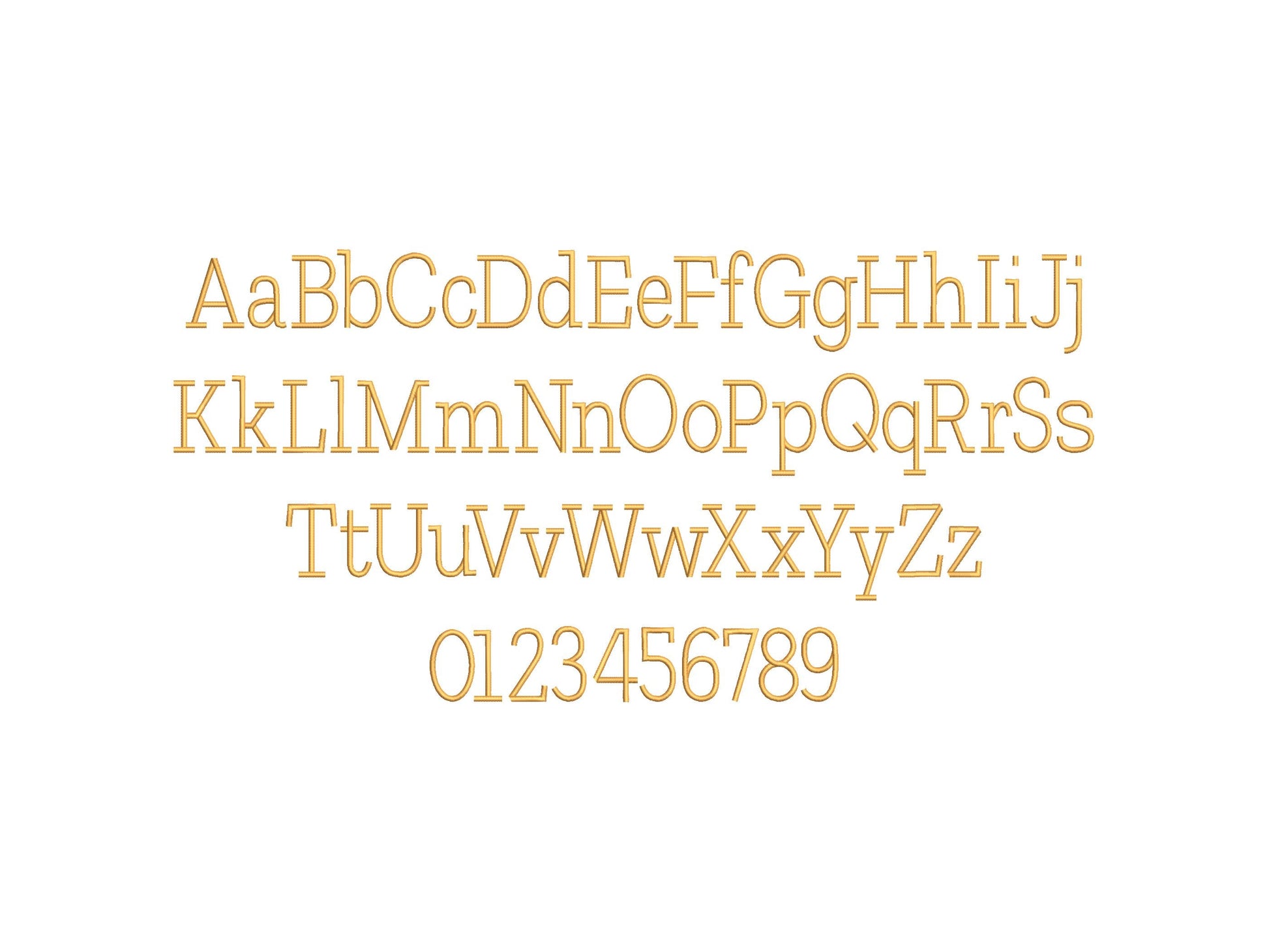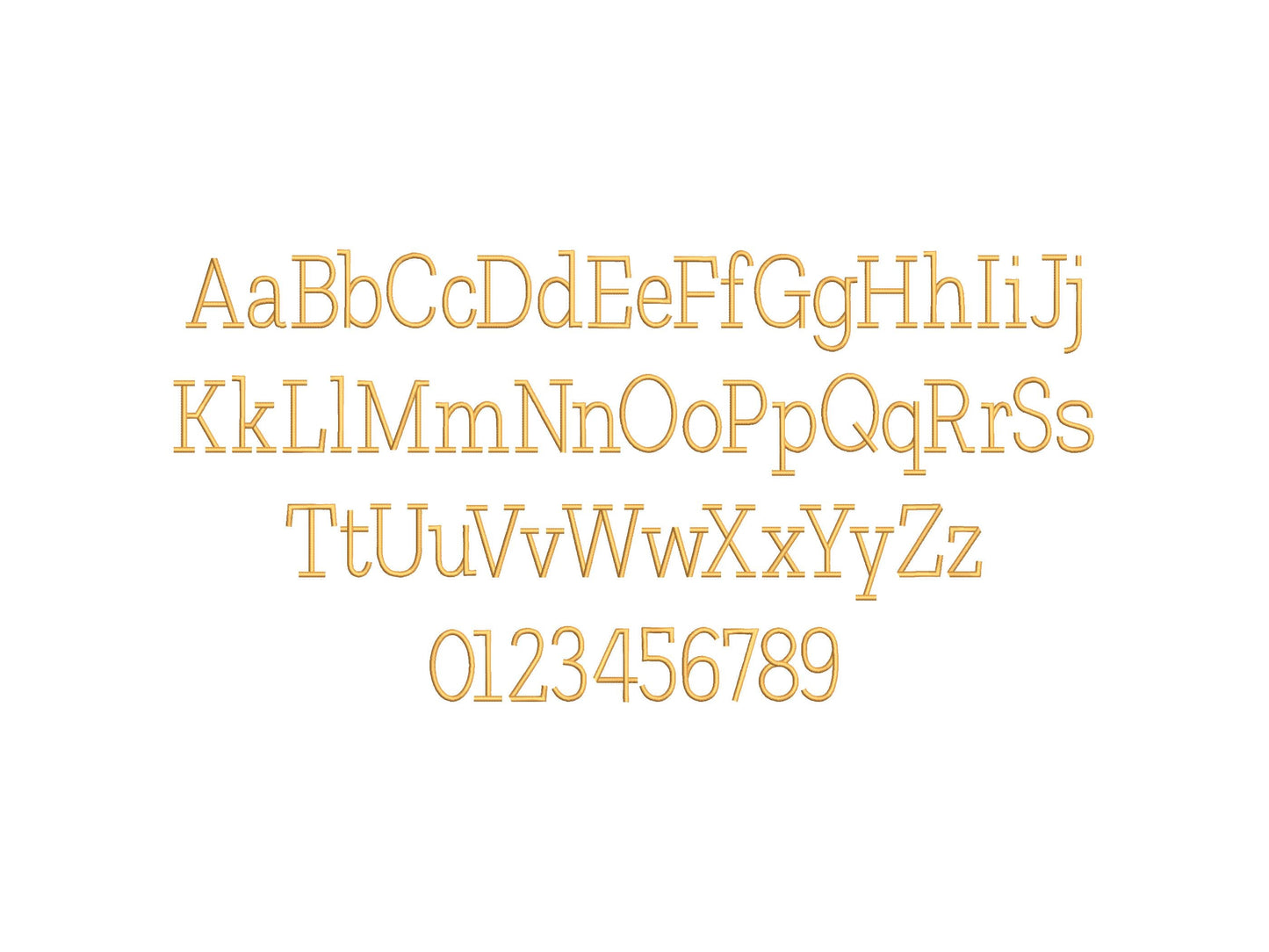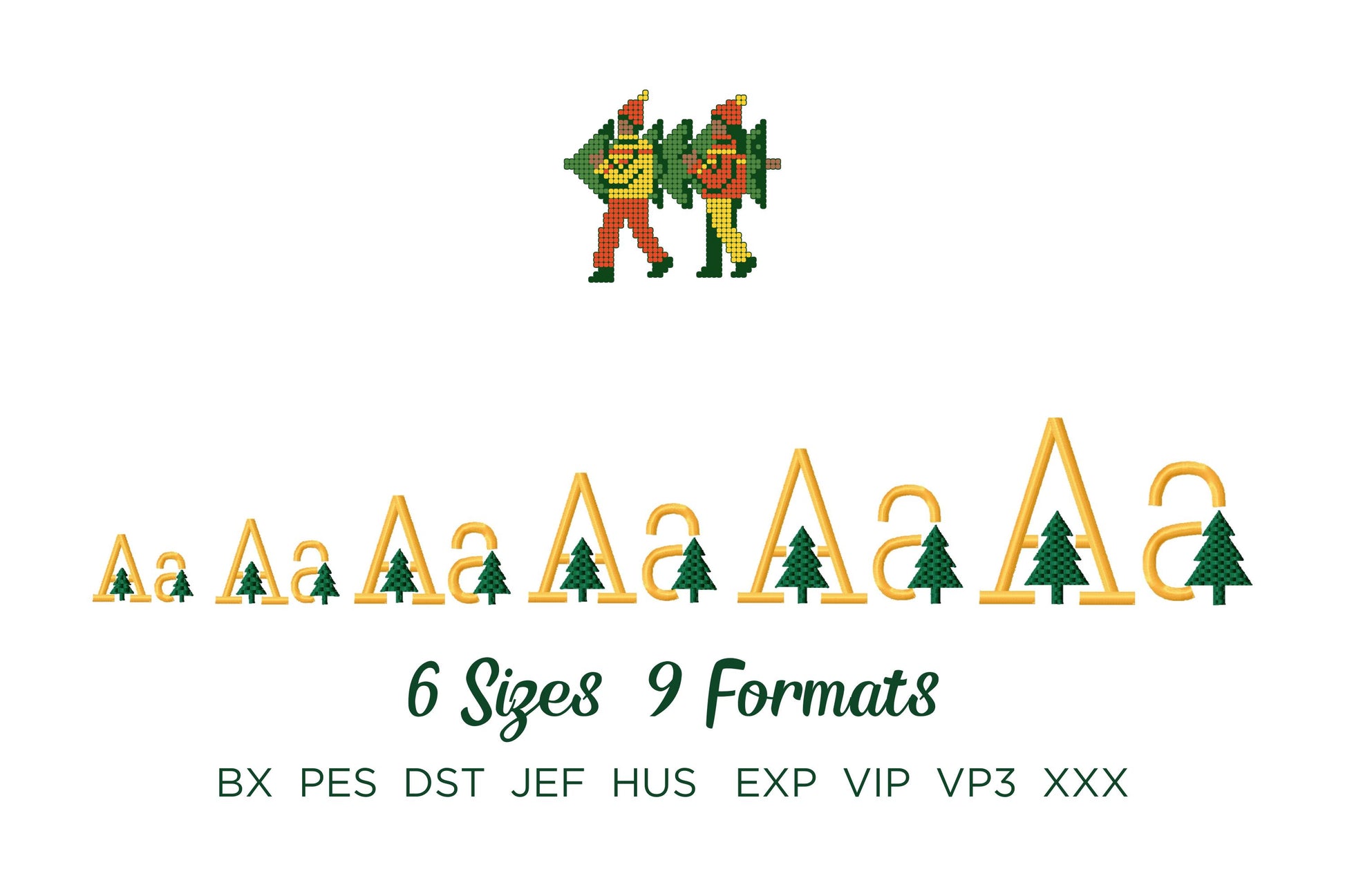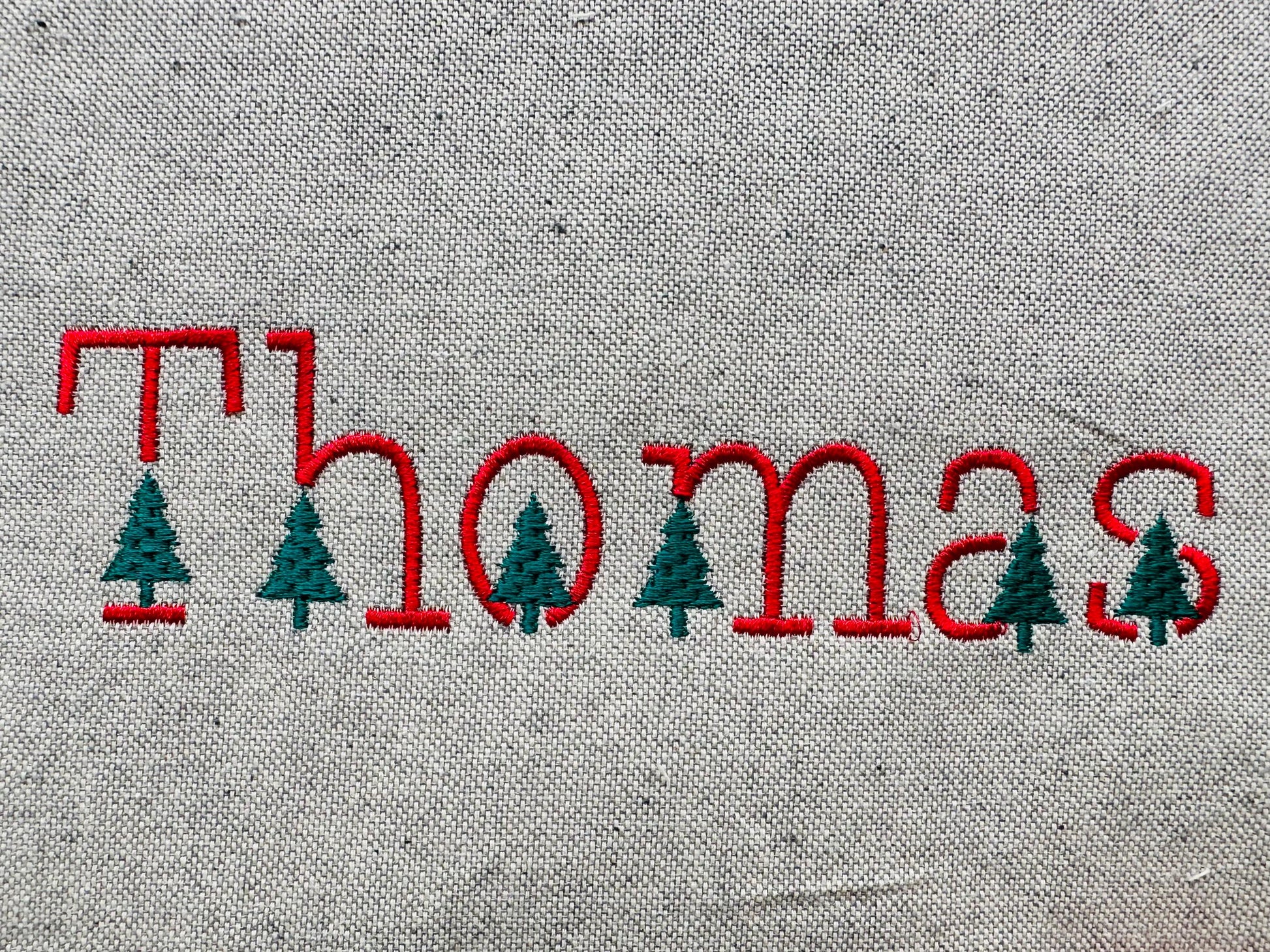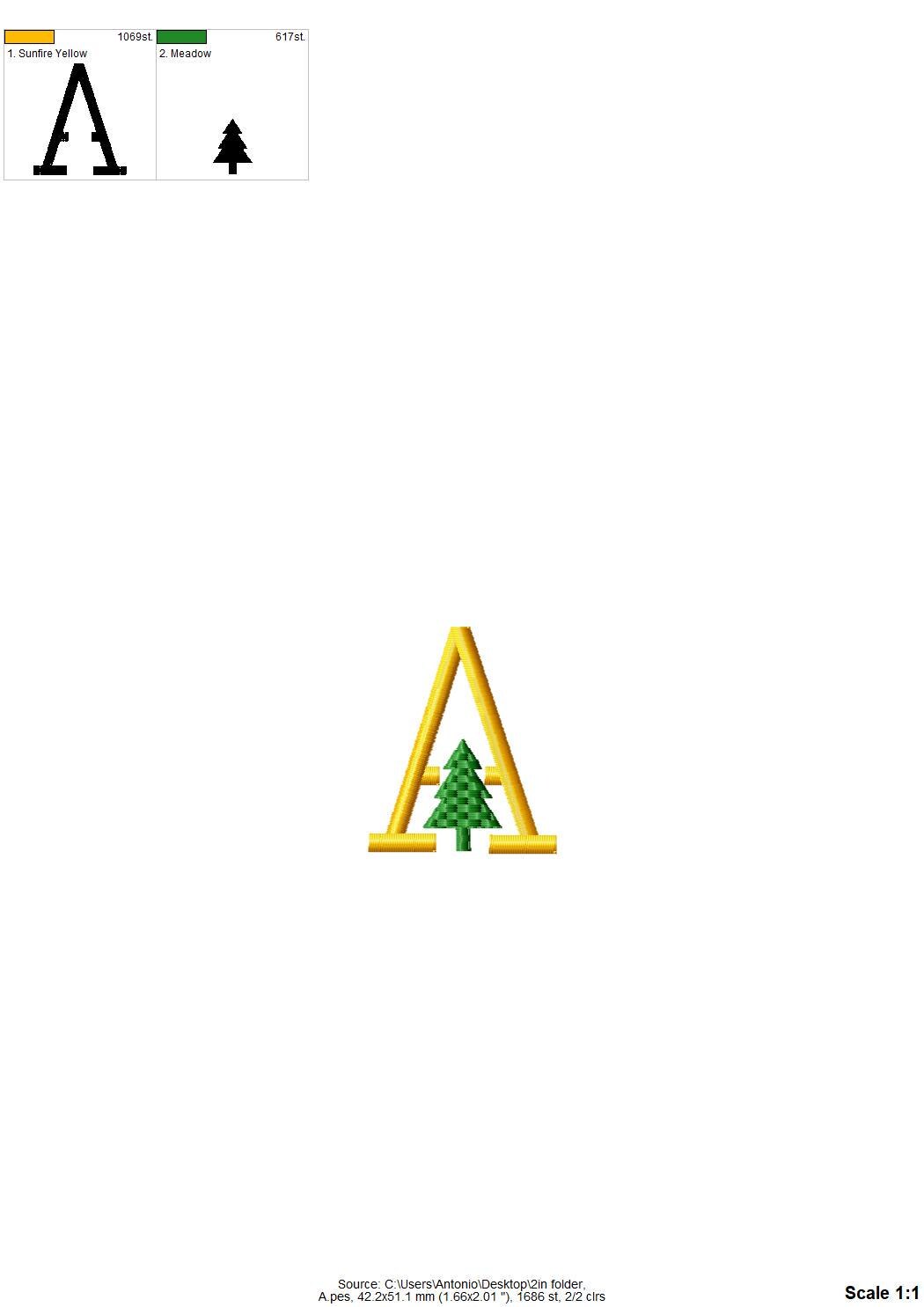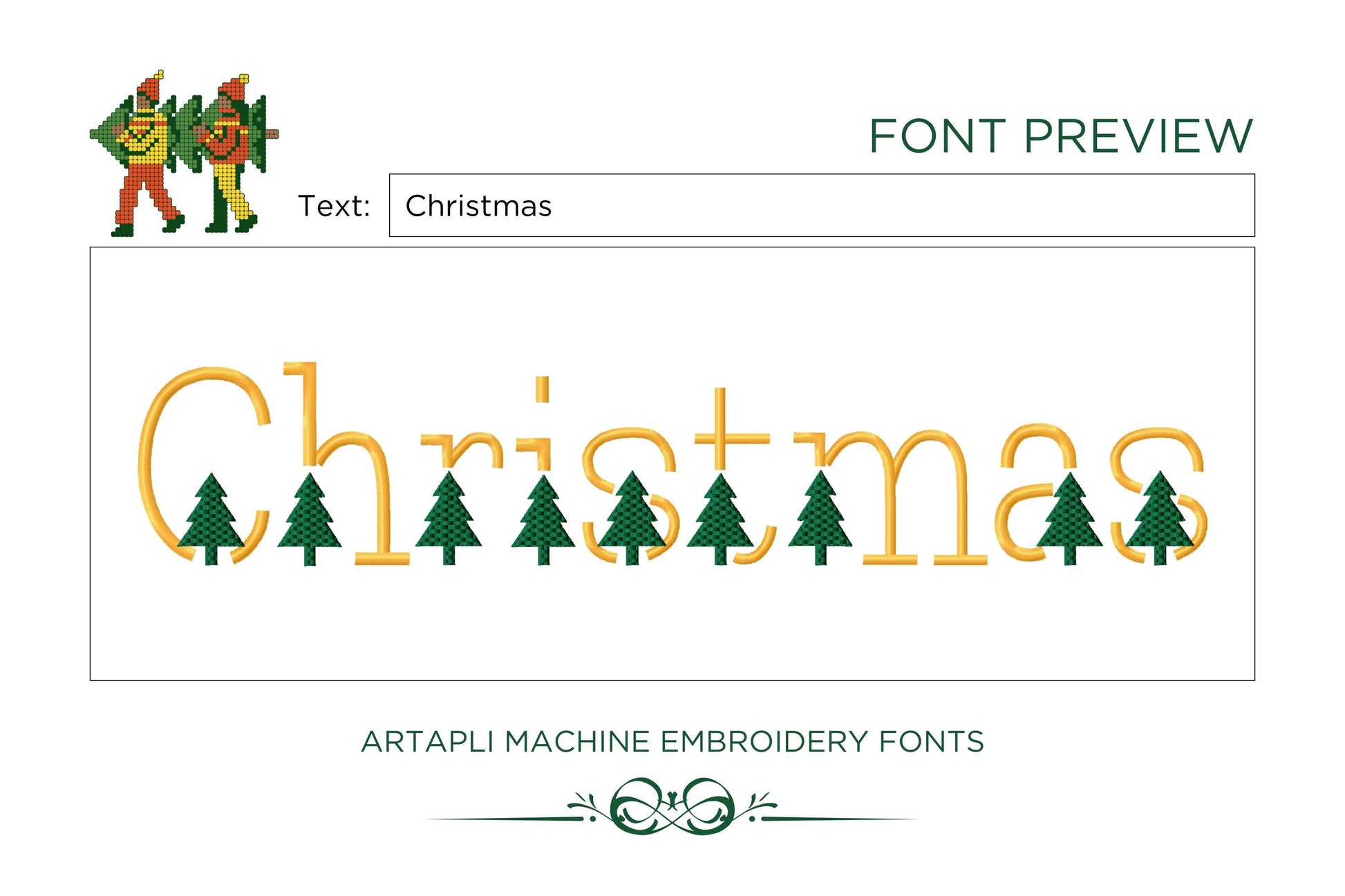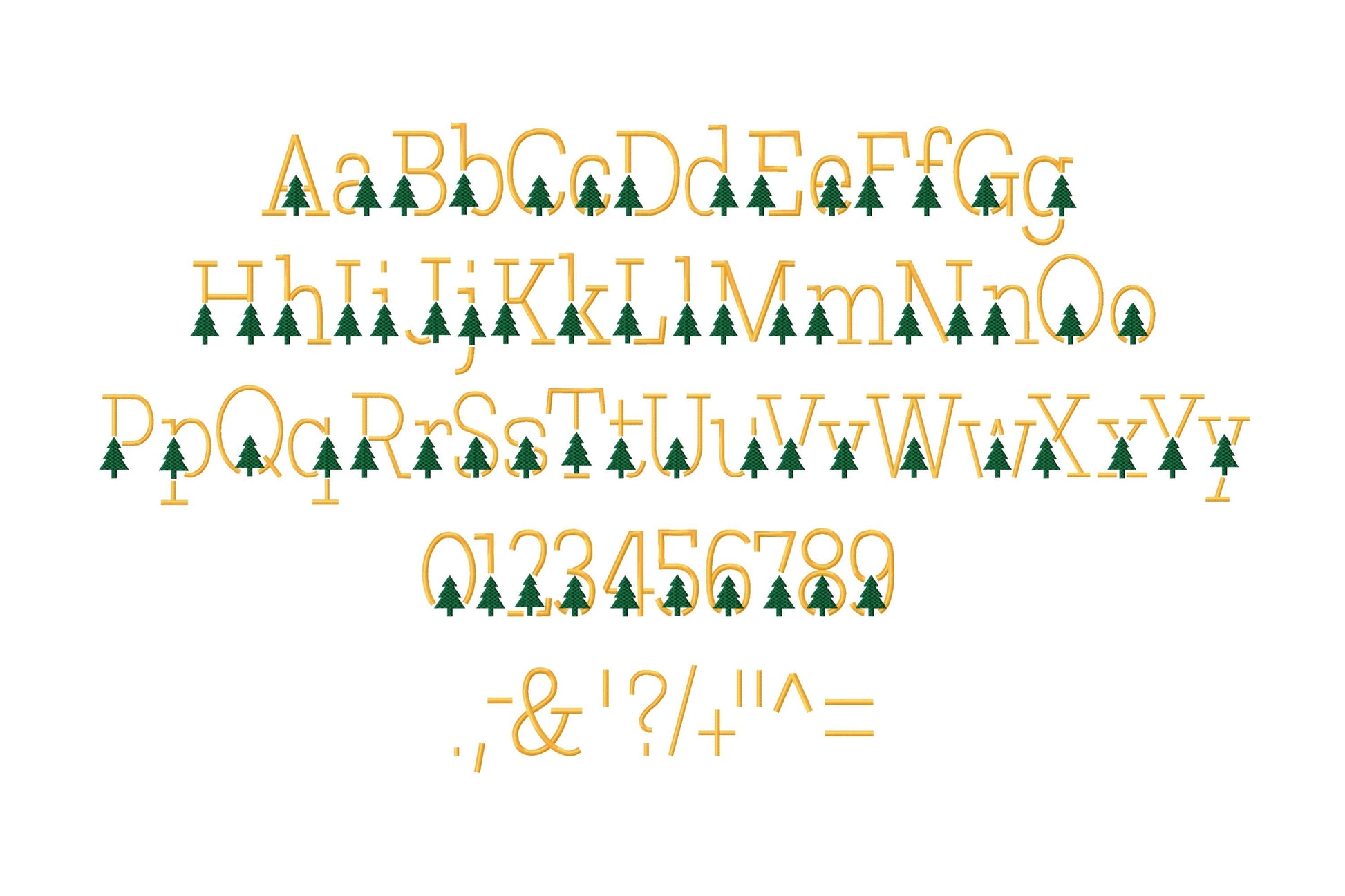
Or click to open the linkTwo satin stitch mini fonts, one with a little Christmas tree and one plain, for holiday names on stockings, ornaments and gifts.
Both fonts have uppercase and lowercase letters, numbers and punctuation. Six sizes: 1, 1.3, 1.7, 2, 2.4 and 3 inches.